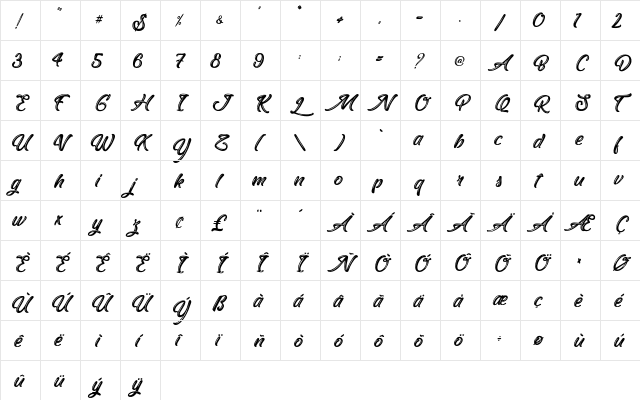
East Octopus - Personal Use Regular
| Designer | Typhoon Type - Suthi Srisopha |
Design Context for East Octopus - Personal Use Typeface
East Octopus - Personal Use is a composed and adaptable typeface that performs quietly and consistently across a wide range of design contexts.